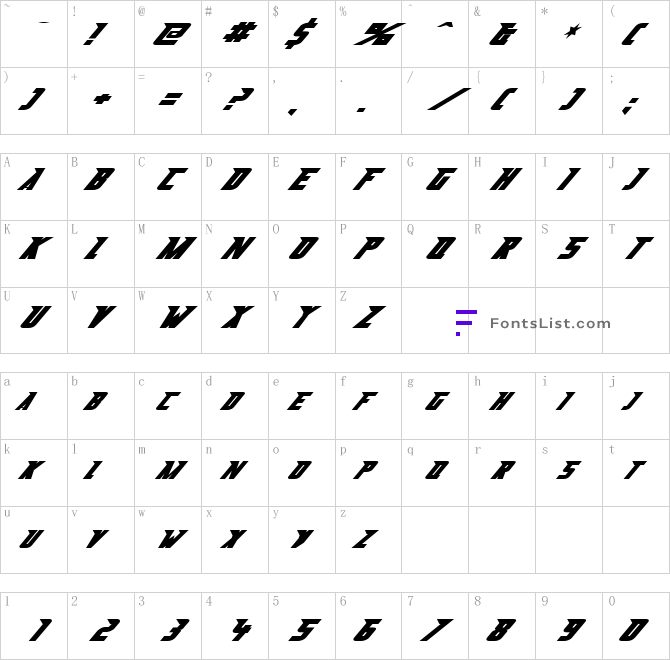
- Font Name:Abberancy
Abberancy.ttf is a very beautiful artistic font, Abberancy.ttf is widely used in the design and printing of various books and pictures,Abberancy.ttf has a strong visual impact,Abberancy.ttf is a commonly used font in newspapers, magazines and books, and is used in posters, e-commerce Poster design, store design, logo design, font design and other fields.Abberancy.